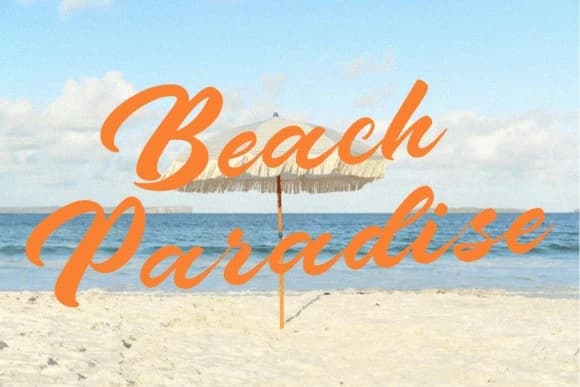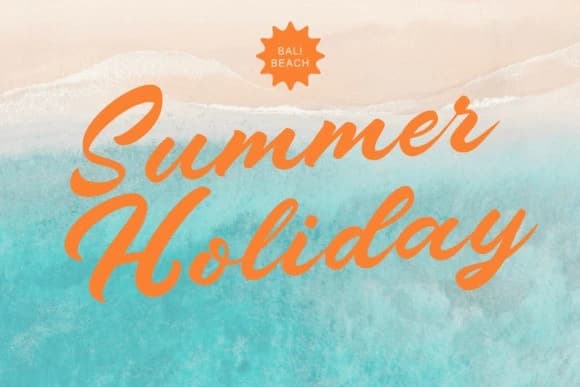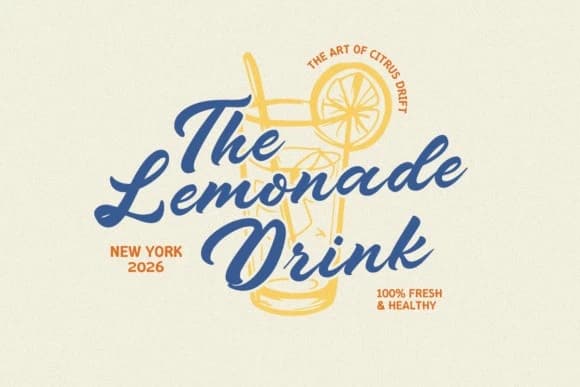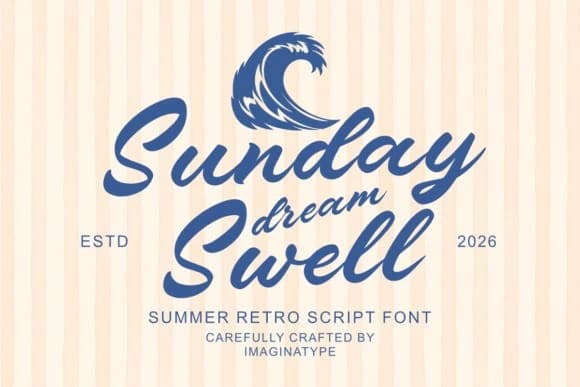
Sunday Dream Swell Font
Sunday Dream Swell Font, a bold and dynamic retro script typeface that captures the spirit of vintage summer vacations. Sun-drenched craftsmanship. Characterized by its confident, hand-painted brush strokes and an expressive, textured baseline
Sunday Dream Swell